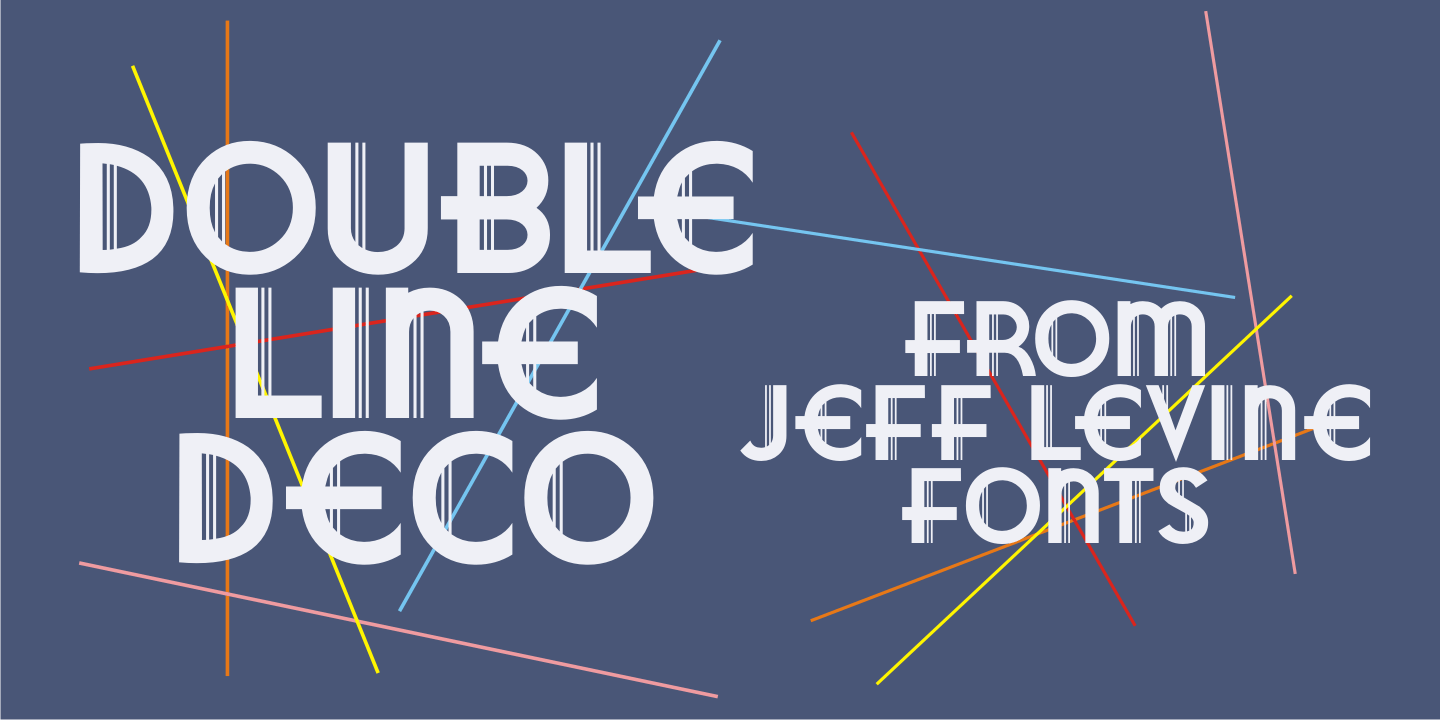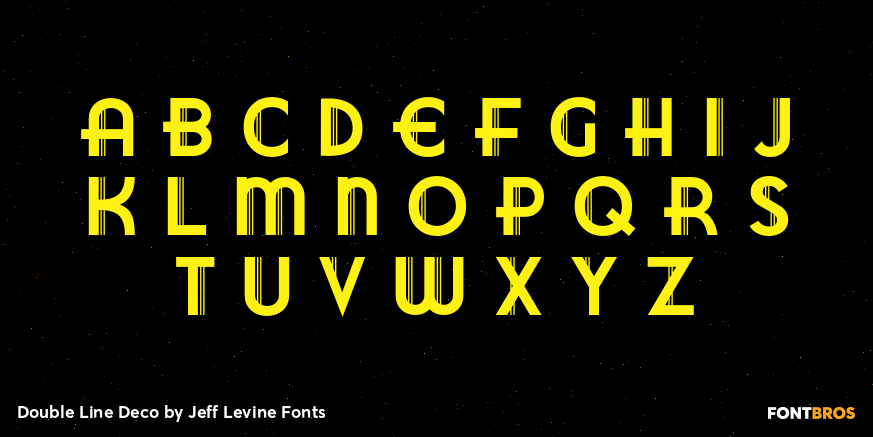
Double Line Deco
Take a classic hand lettered Art Deco alphabet, add in a treatment of dual straight vertical lines and the resulting typeface is Double Line Deco JNL.